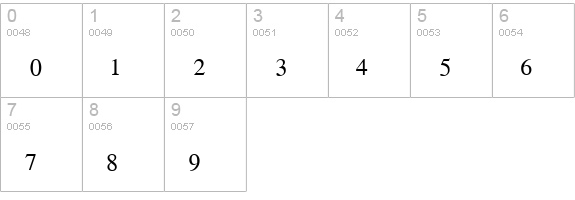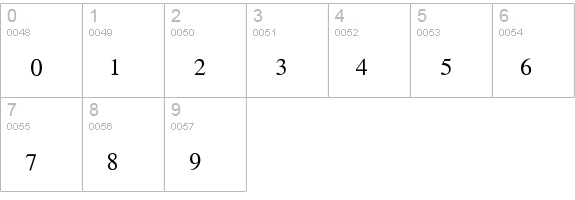
TimeFraction Regular is the standard, neutral variant in the TimeFraction typeface family \xE2\x80\x94 well suited to general body text, paragraphs, and standard typographic work.
TimeFraction Regular is a sleek and modern font that effortlessly combines elegance with a touch of edginess. This versatile typeface is perfect for various design projects, whether it's creating eye-catching headlines, crafting professional business documents, or adding a stylish flair to your personal branding. With its clean lines and balanced proportions, TimeFraction Regular exudes a sense of sophistication and professionalism. Its timeless appeal makes it suitable for a wide range of applications, from corporate logos and branding materials to website design and advertising campaigns. One of the standout features of TimeFraction Regular is its versatility. It can be used effectively in both print and digital media, ensuring that your message is delivered consistently across different platforms. Its legibility at small sizes ensures that your text remains clear and readable, while its bold presence at larger sizes commands attention and leaves a lasting impression. What sets TimeFraction Regular apart from other fonts is that it is freely available to download at FontsMarket.com. This means that you can access and use this font without any limitations, making it an excellent choice for designers on a budget or those looking to experiment with different typography styles. Whether you're a seasoned designer or just starting out, TimeFraction Regular is a font that will elevate your designs to new heights. Its timeless elegance, versatility, and the fact that it is free to download make it a must-have in your font collection. So why wait? Visit FontsMarket.com today and unlock the creative potential of TimeFraction Regular!